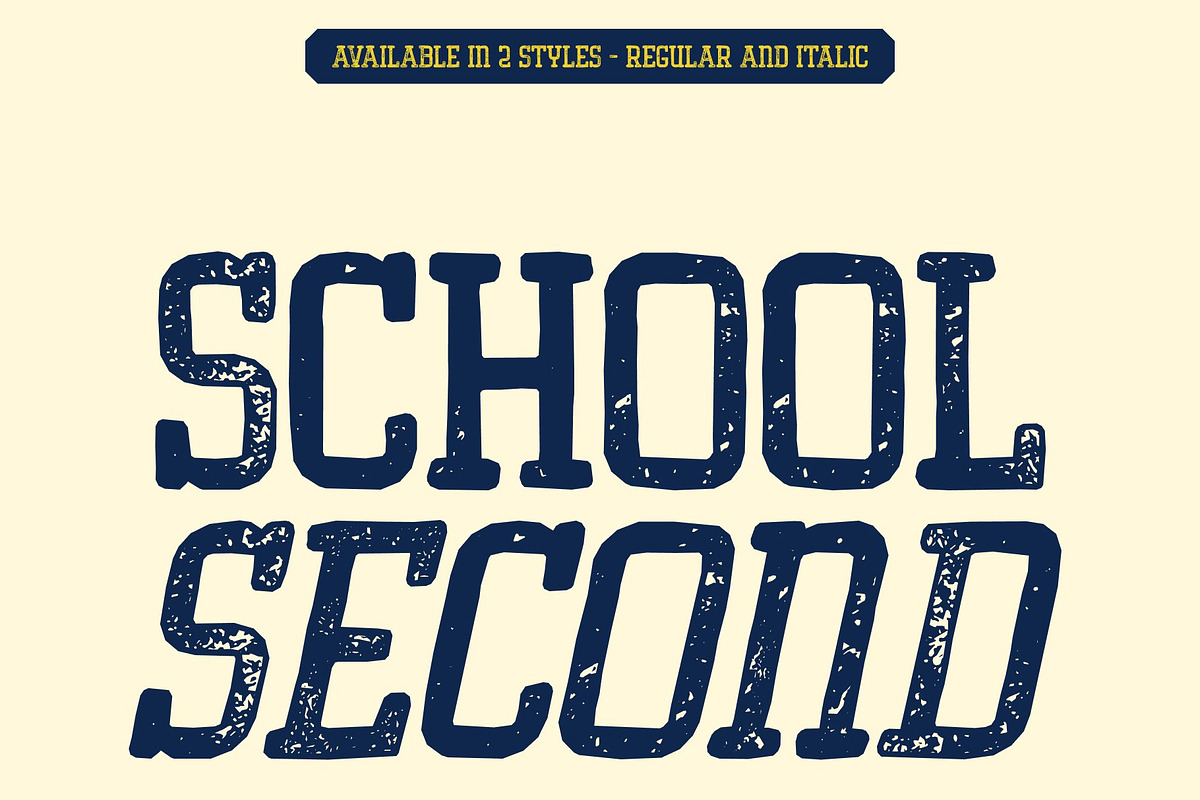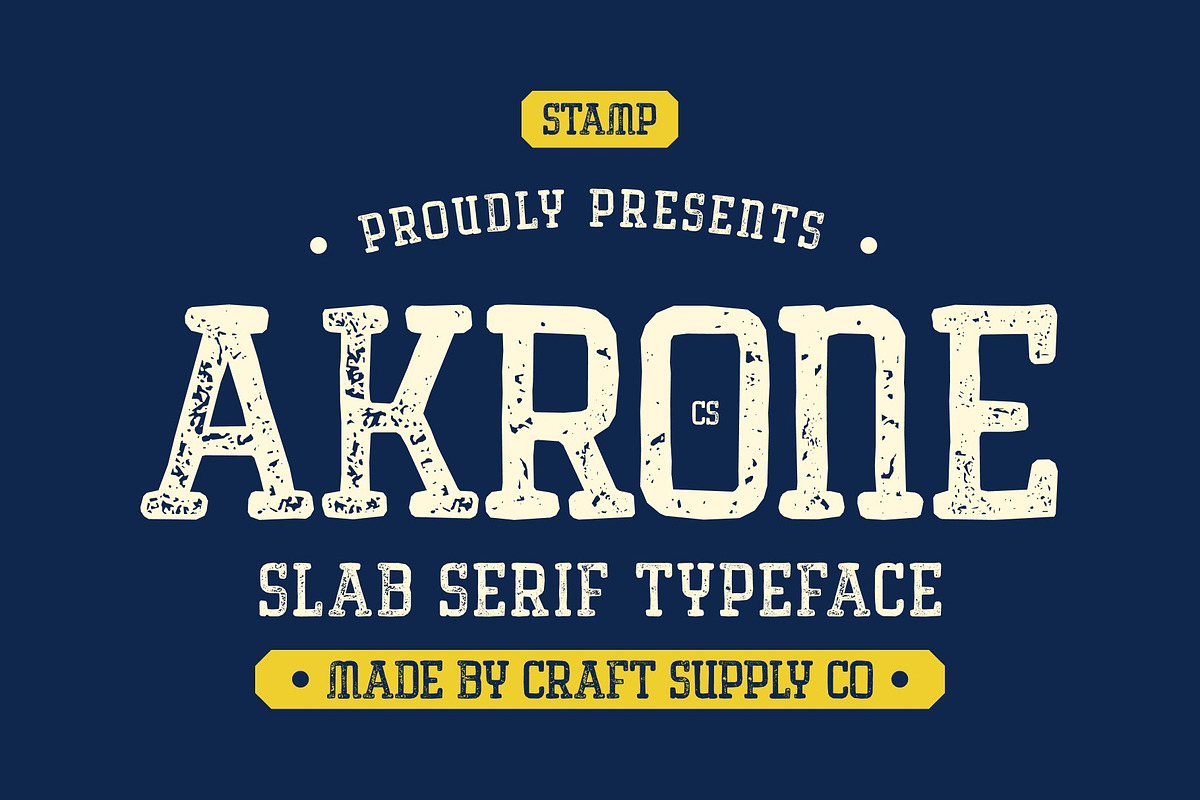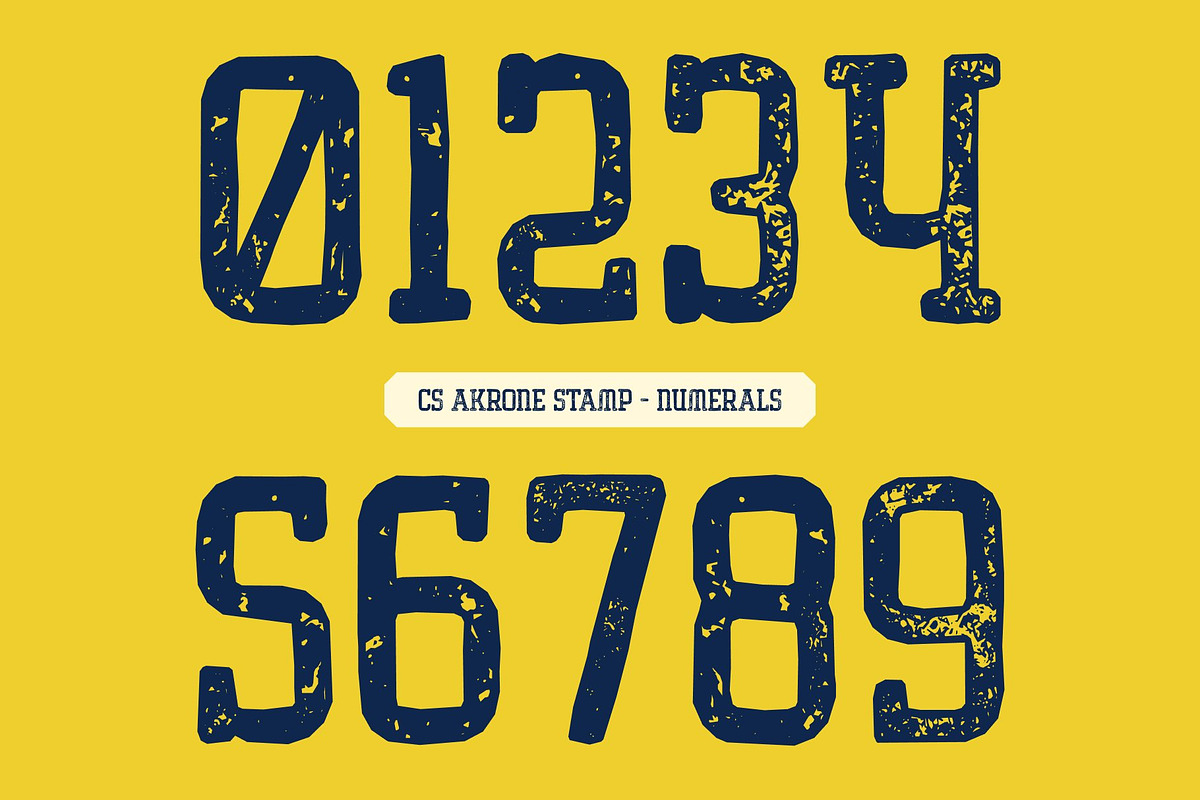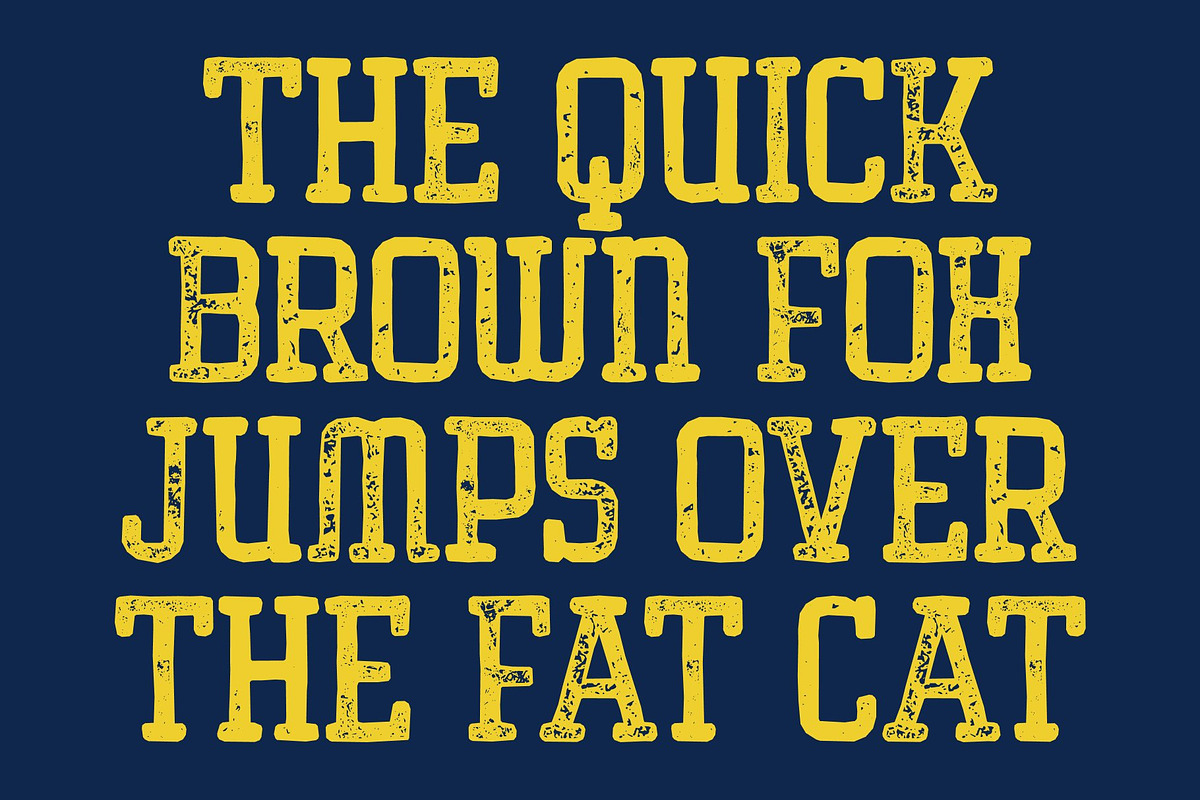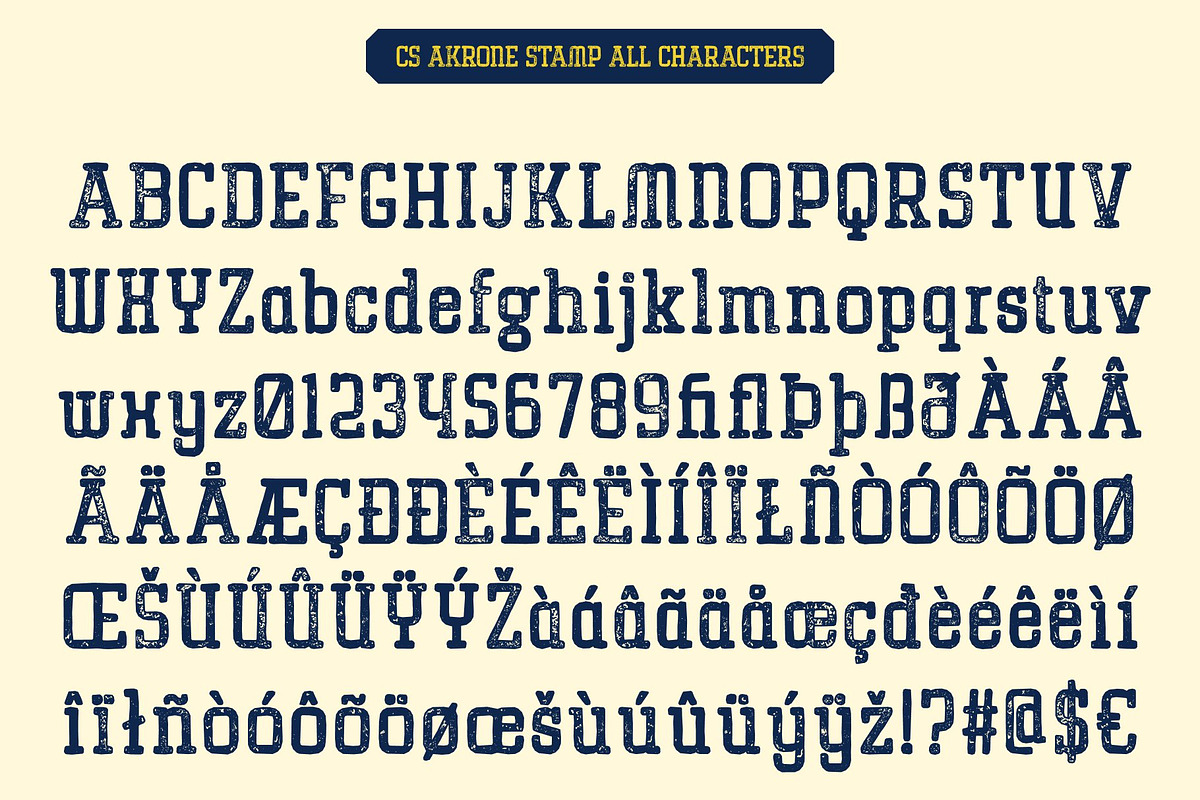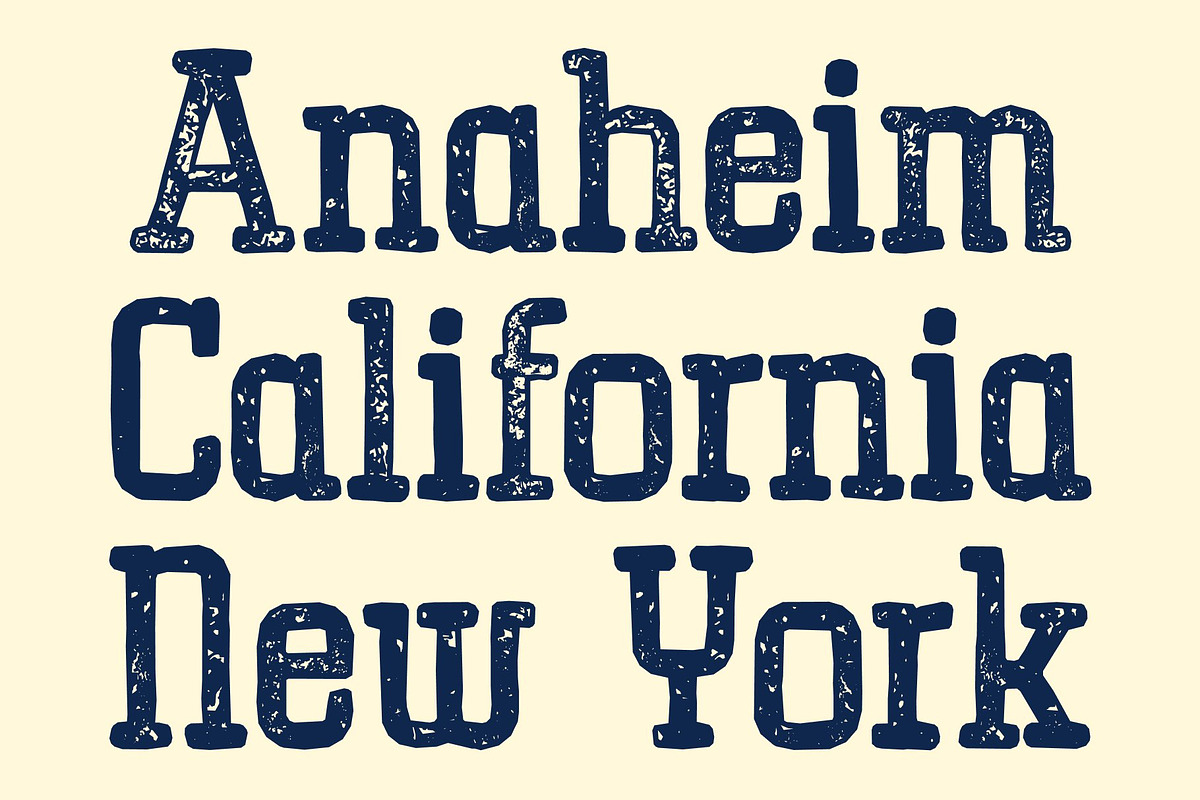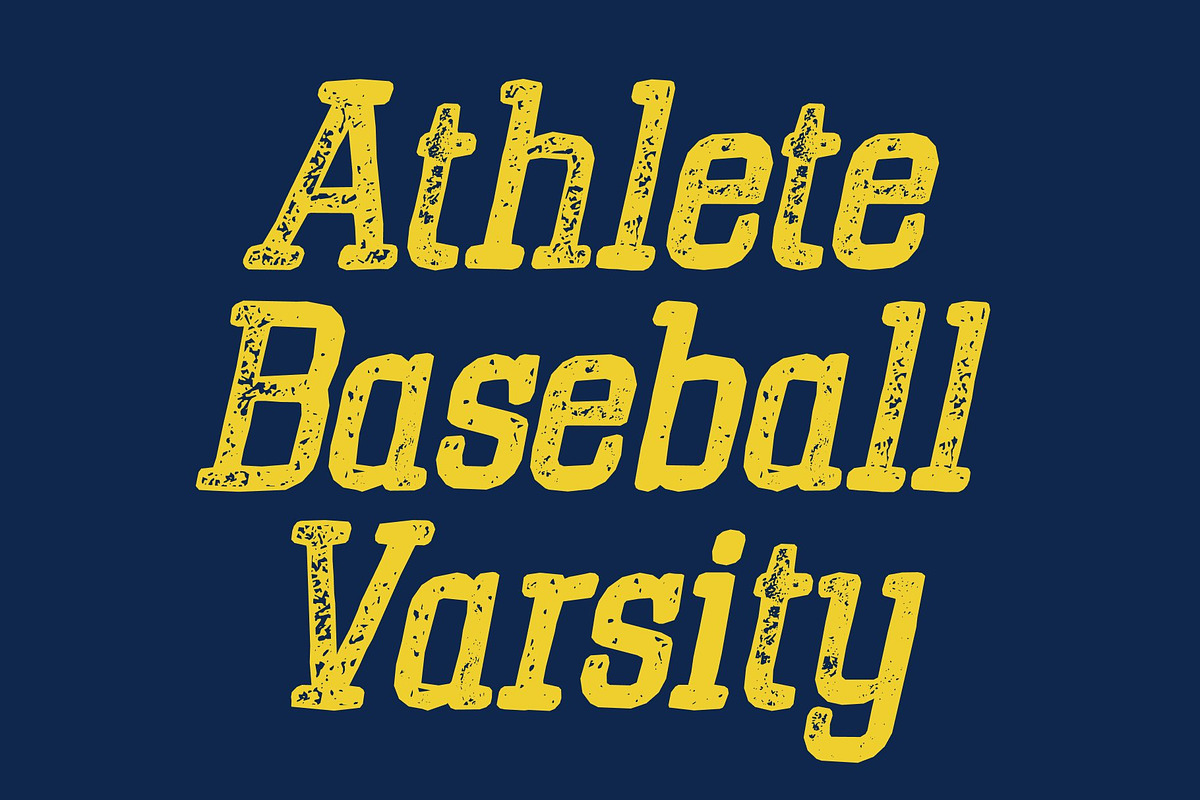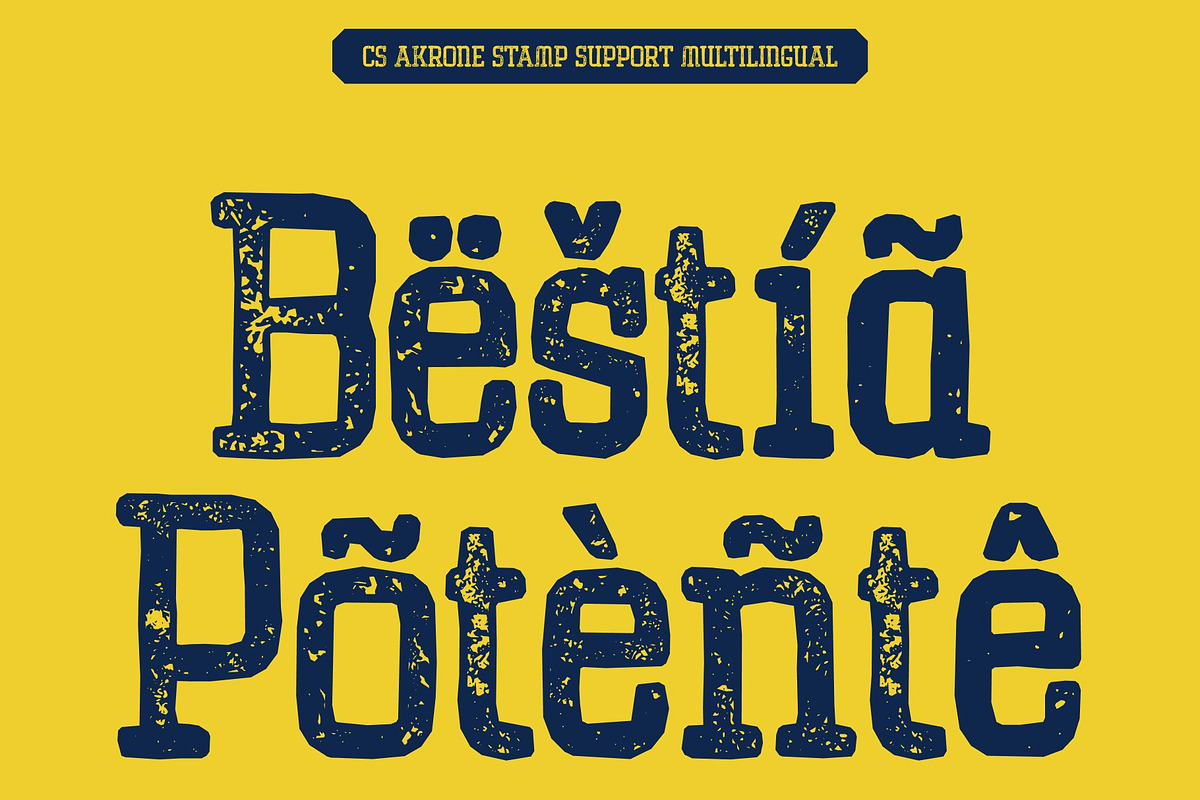
CS Akrone Stamp
CS Akrone Stamp – Soft Slab Serif with Confident Presence Balanced Softness and Strength with Stamp Texture This is a slab serif font designed to deliver a confident yet approachable impression. Its sturdy slab serifs form a strong, grounded foundation, while smooth curves and balanced proportions introduce softness and warmth. Enhanced with a subtle stamp effect, the font gains an organic, slightly distressed texture that adds character, depth, and a handcrafted feel.
Optimized for Impact and Readability Built with clean, bold letterforms, this font performs exceptionally well at large sizes. Its excellent legibility ensures clarity from a distance, making it ideal for headlines, posters, advertisements, signage, and billboards. The stamped texture enriches the visual presence without sacrificing readability or structure.
Modern, Sturdy, and Expressive Character This font conveys a contemporary and solid visual identity, blending modern design sensibility with tactile vintage nuance. The confident weight and soft slab details allow it to stand out clearly while remaining friendly and accessible. The stamp finish adds authenticity, giving designs a more human and expressive tone.
Ideal for Logos and Strong Visual Branding From logos and branding systems to large-scale promotional materials, this font offers versatility and authority. Its clear structure, balanced personality, and textured finish help create bold, memorable typography that communicates strength, reliability, and modern appeal across a wide range of creative projects.
- CS Akrone Stamp Regular
- CS Akrone Stamp Italic